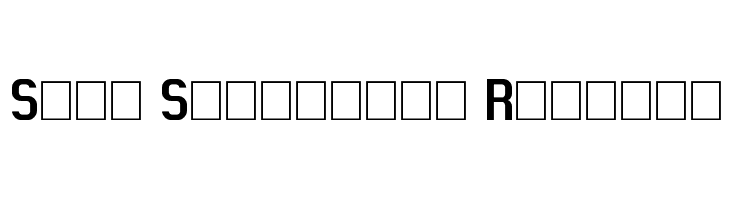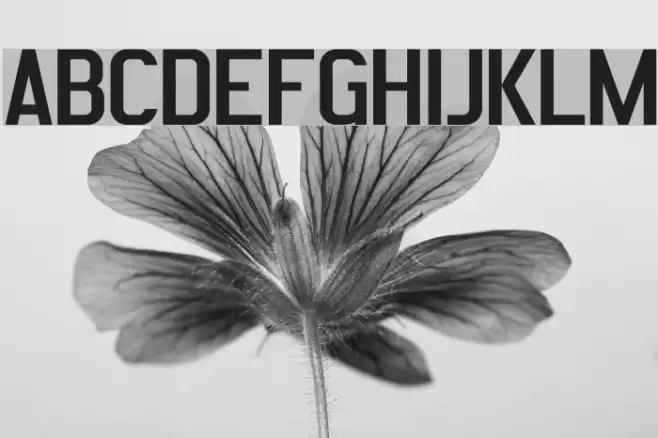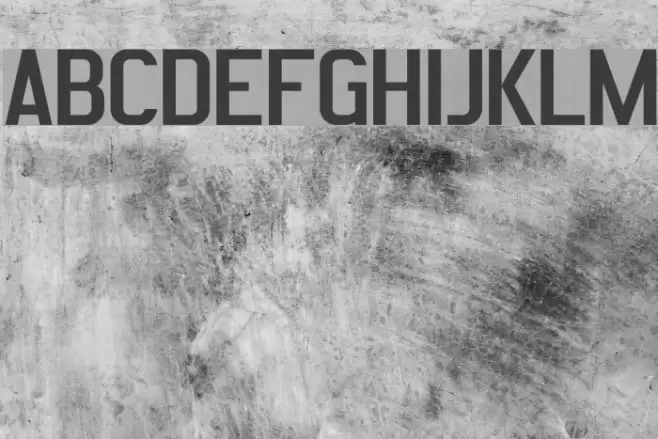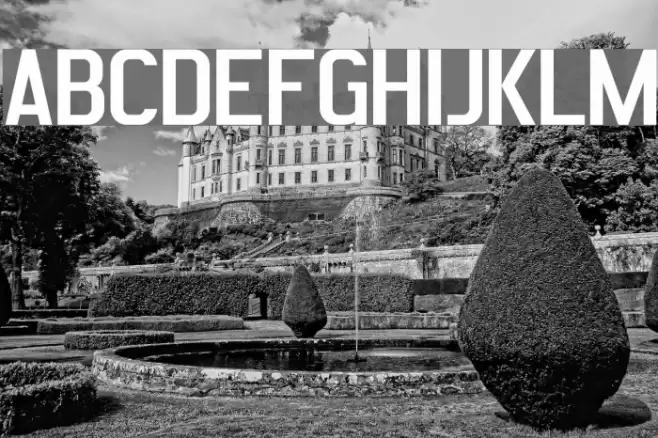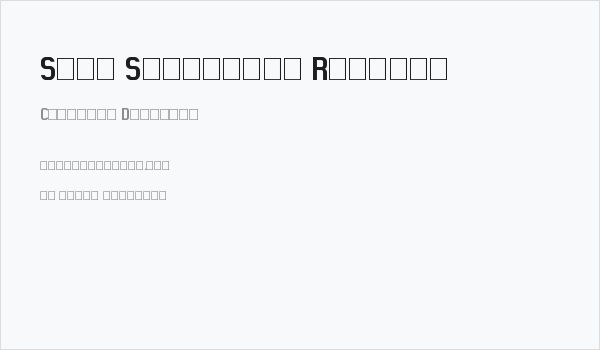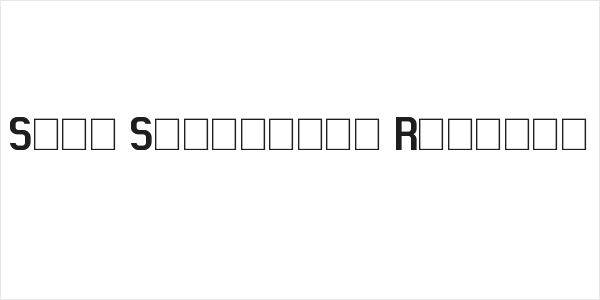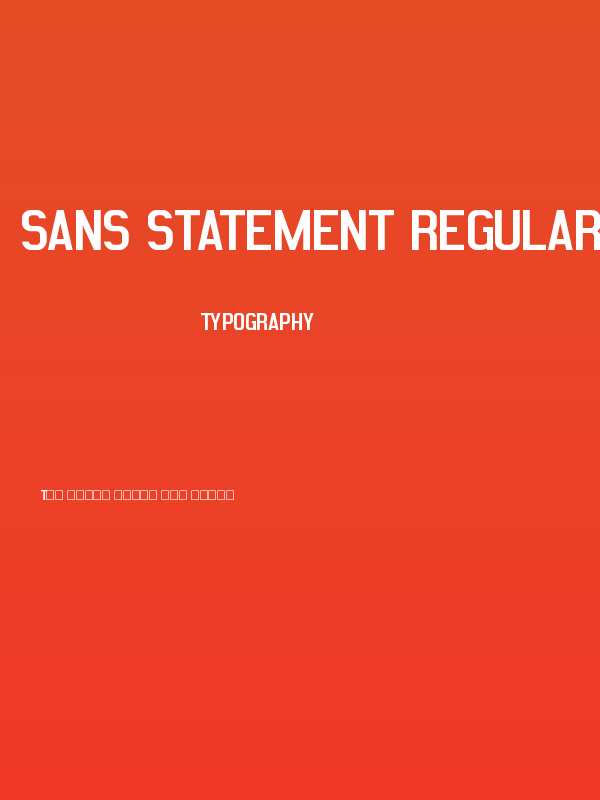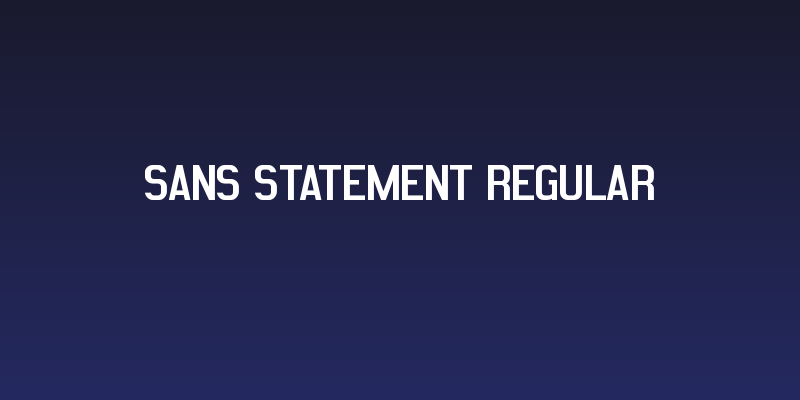
Sans Statement Regular Font
Sans Statement Regular Description
This font features a bold and modern sans-serif style with clean lines and a strong presence. The uppercase letters are uniform in height, providing a sense of stability and balance. The characters are designed with a geometric precision, making them highly legible and suitable for various design applications. The absence of serifs gives it a contemporary look, while the bold weight adds emphasis and impact. The font's simplicity and clarity make it versatile for both digital and print media.
| Proposed Projects | Ideal for branding, advertising, headlines, posters, and digital media where a strong, modern presence is desired. |